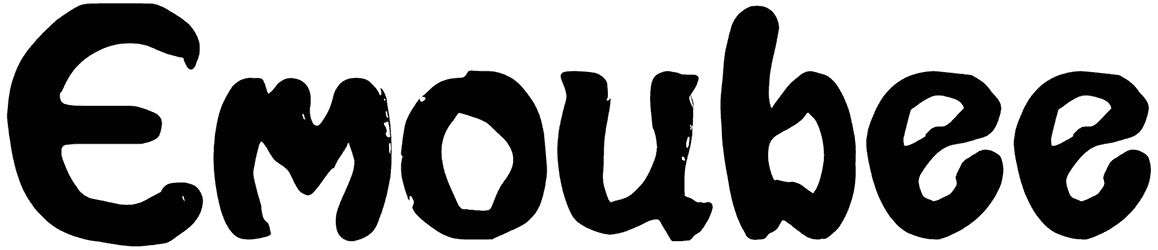
Emoubee Font
Let us unveil the most notable eroded font with a chunky comic style: Emoubee. A winsome face can revive the viewer’s preference to opt for something unique. Some departments, such as movie titles, posters, social media posts, and packaging, would be notable for against.
Nothing can destroy the charm of this grunge font; also, its fancy outward appearance that represents amusing vibes, hand in hand, incidentally makes it more striking than others.
Emoubee font is good for designing wedding invitations, birthday invitations, menus and designs that require a handwritten display and others.